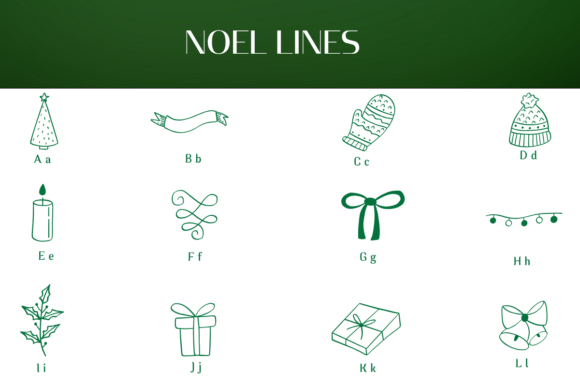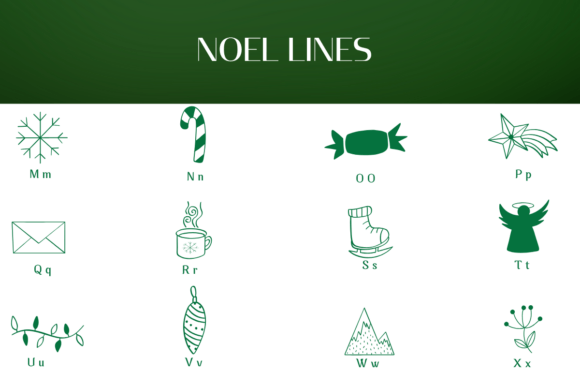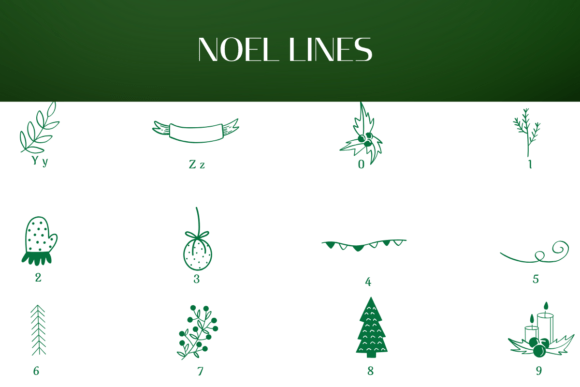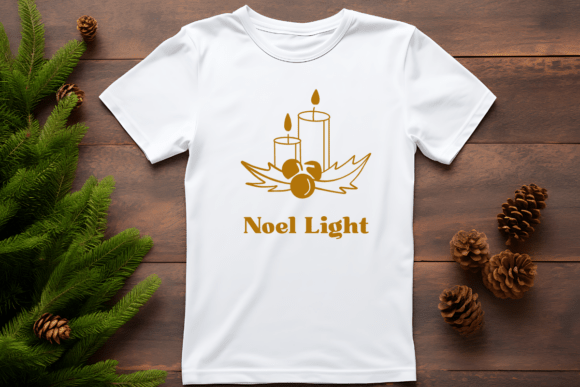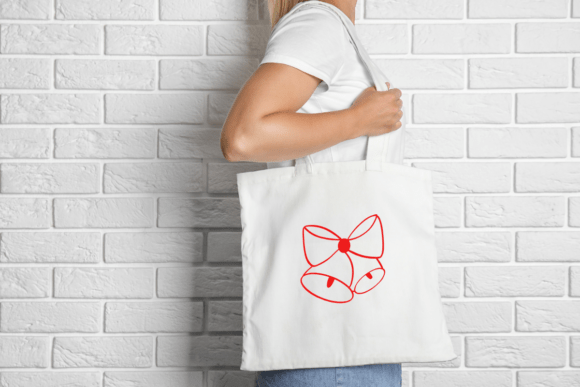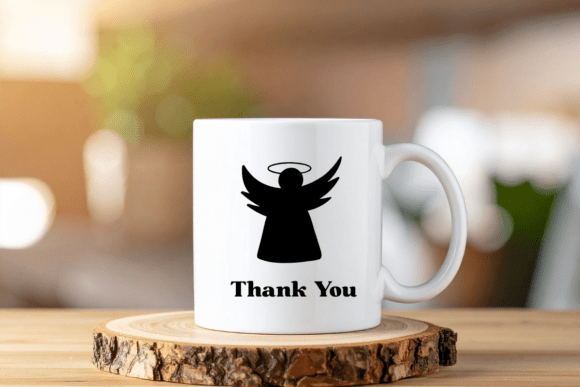
Introduction to Noel Lines Font
As the holiday season approaches, I find myself rummaging through my collection of design resources, searching for the perfect festive touch to elevate my creative project. The thrill of the hunt is always exciting, but sometimes, it’s the simplest yet most charming elements that make all the difference. That’s exactly what I discovered when I stumbled upon the Noel Lines Font – a delightful dingbats font that’s sure to add a dash of holiday magic to any design.
With its high-quality illustrations of cozy mittens, gift boxes, and ornaments, the Noel Lines Font is a treasure trove of design inspiration. This versatile font is perfect for designers looking to add a personal touch to their holiday cards, tags, and crafts. And the best part? The transparent background makes it easy to combine with other design elements, allowing for endless creative possibilities.
Key Features of Noel Lines Font
- Unique, hand-drawn style with intricate line work and subtle texture
- Perfect for adding a touch of elegance and sophistication to any design
Honest Review: Noel Lines Font
I recently had the opportunity to work with the Noel Lines Font, and I must say it’s a solid addition to any designer’s toolkit. As a design resource, it’s perfect for those looking to add a touch of elegance and sophistication to their creative project.
One of the standout features of this font is its high quality. The lines are crisp and clean, making it ideal for use on a transparent background. I was impressed by the level of detail that has gone into its creation.
- ✨ High quality lines that are crisp and clean
- ✨ Perfect for use on transparent backgrounds
- ✨ Elegant and sophisticated look
However, there are a few limitations to be aware of:
- ⚠️ Limited character set (no support for non-Latin scripts)
- ⚠️ May not be suitable for use in complex designs or at small font sizes
Noel Lines Font
The Noel Lines Font is a high-quality design resource perfect for creative projects. It features a unique and elegant design that can elevate any project to the next level.
Tips for Getting the Most Out of Noel Lines Font
For the best results, use the Noel Lines Font with a transparent background to create a clean and elegant design. You can also use it in combination with other design elements to create a unique and eye-catching visual effect.
The Noel Lines Font is perfect for a variety of creative projects, including:
- Wedding invitations and decorations
- Christmas and holiday cards
- Business presentations and reports
- Design projects and portfolios